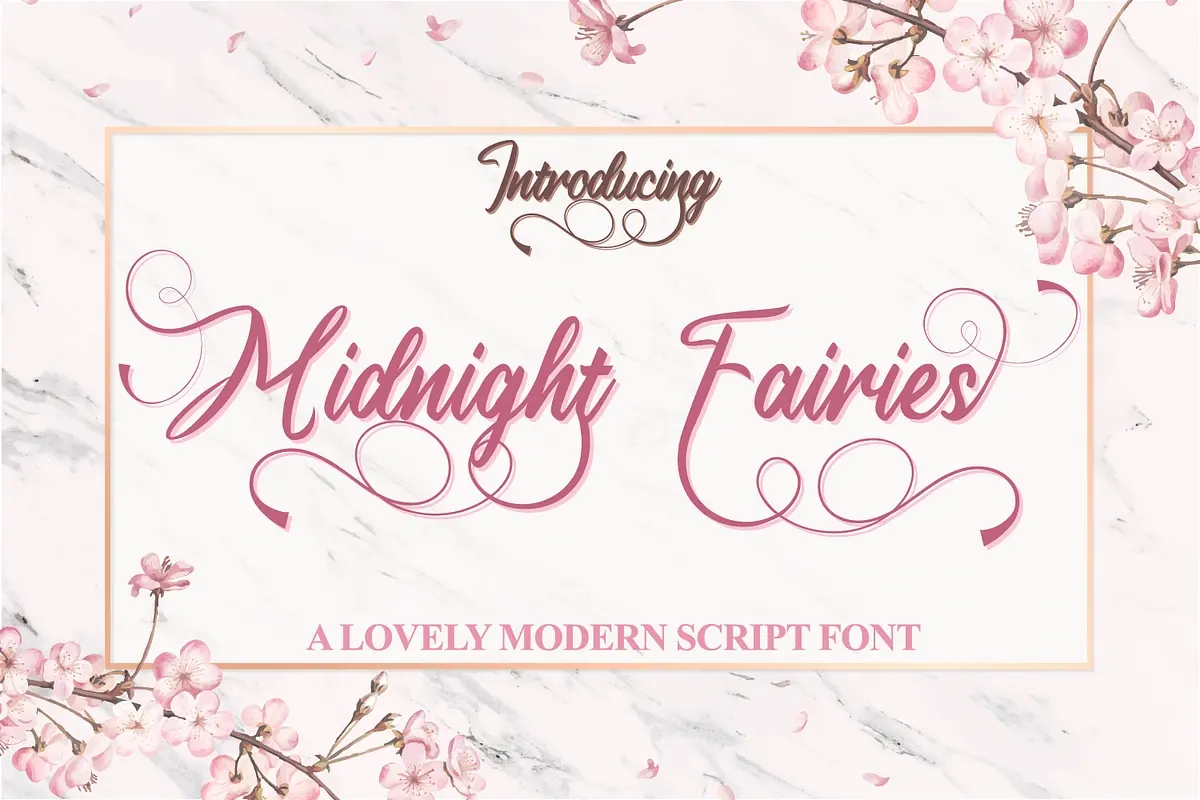
Midnight Fairies | Calligraphy Font Free Download
You must purchase this font for commercial use. However, you can download Midnight Fairies | Calligraphy Font Free Download for testing purposes. Midnight Fairies is a beautifully crafted calligraphy font that exudes elegance and grace. With its flowing, sophisticated strokes and intricate details, this font is perfect for wedding invitations, greeting cards, logos, branding, and any project that requires a touch of luxury and personalization.
The smooth, curving letterforms of Midnight Fairies capture the essence of hand-drawn calligraphy, making it ideal for projects that need an artistic, refined touch. Whether you're creating romantic invitations, designing a high-end logo, or crafting decorative elements for an event, this font will add charm and elegance to your designs.